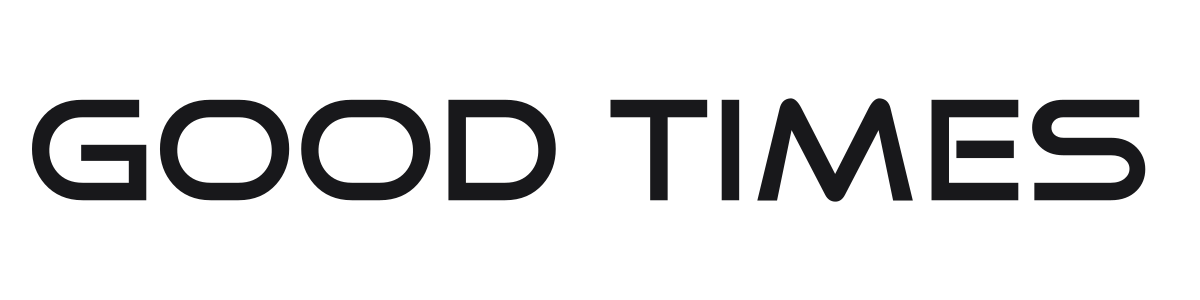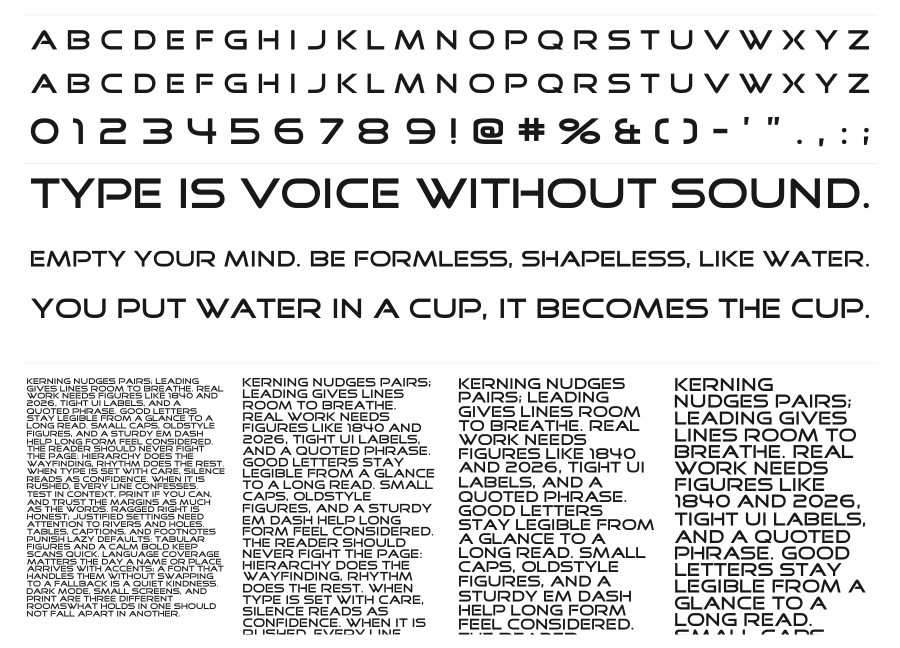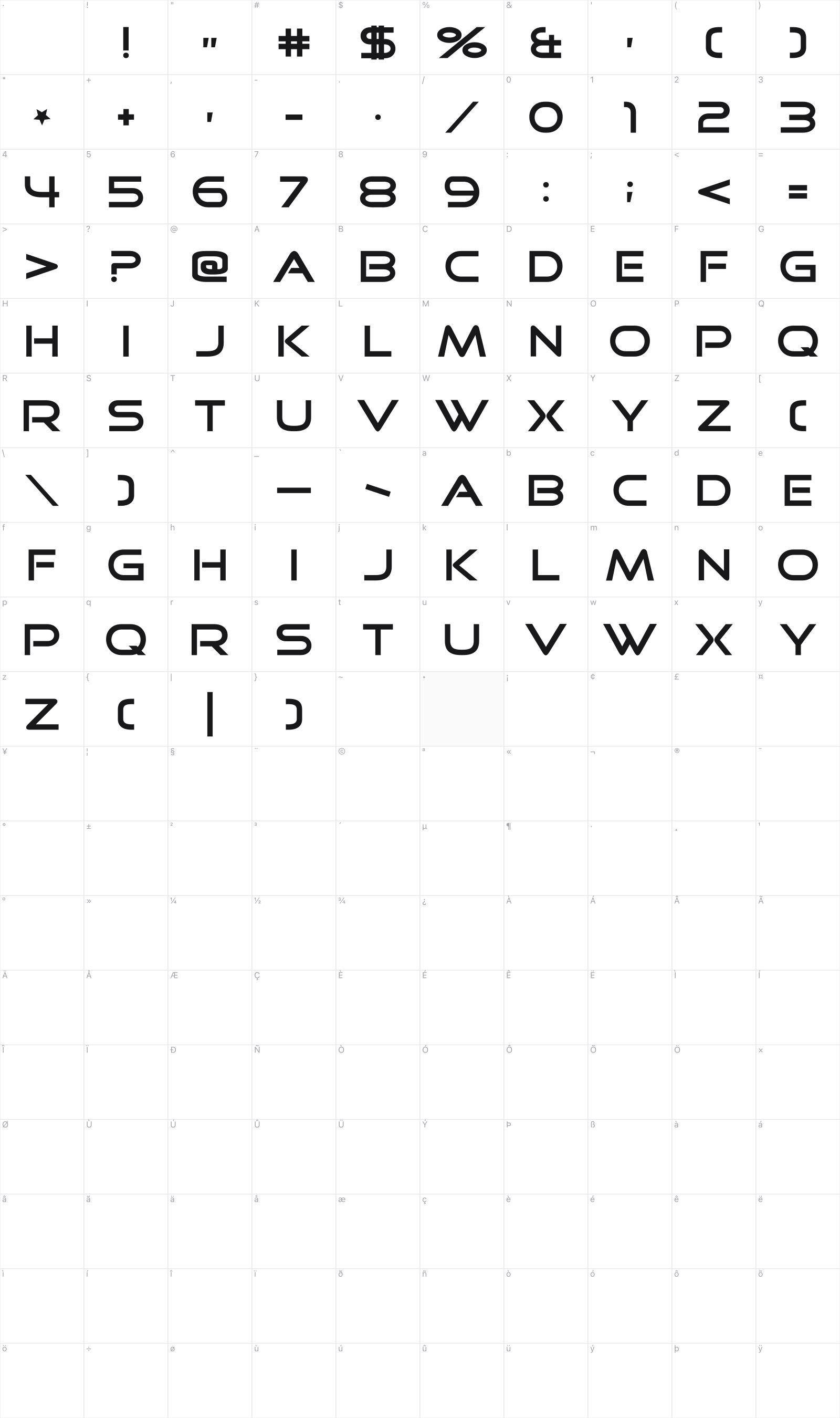
Good Times
Good Times is a wide geometric sans with a distinctly futuristic, motorsport-influenced personality. Its monoweight strokes and angled notch details at select terminals keep it from being a plain grotesque, landing it somewhere between clean modernism and sci-fi display. It has been a go-to for gaming titles, racing graphics, and tech branding for decades.